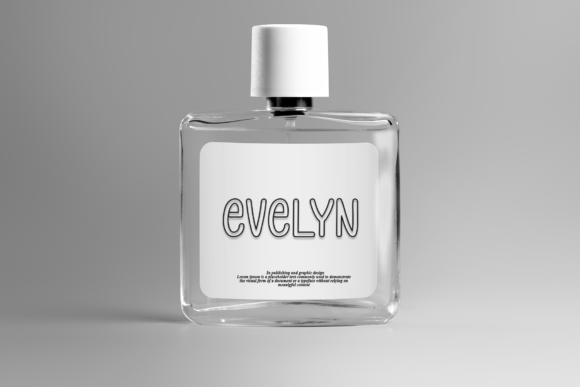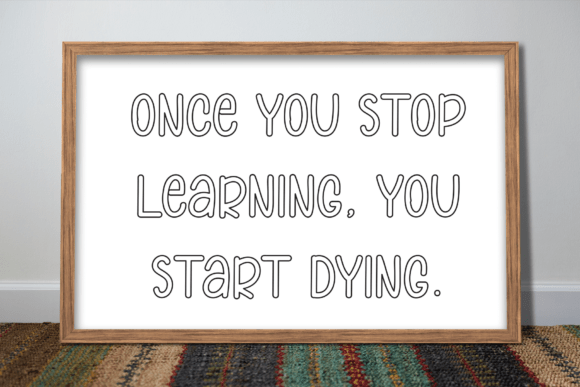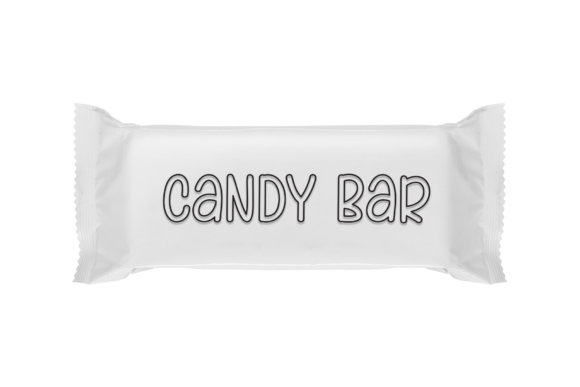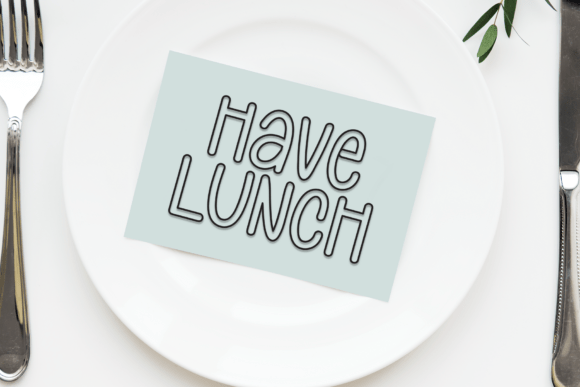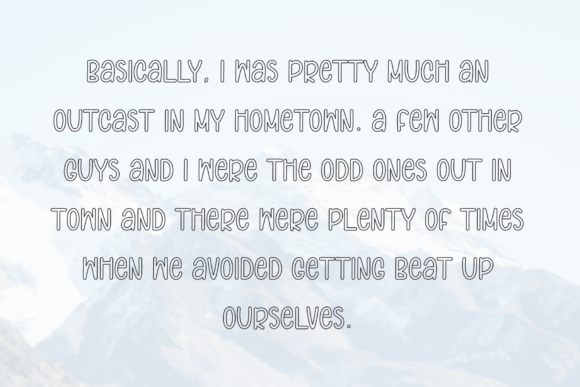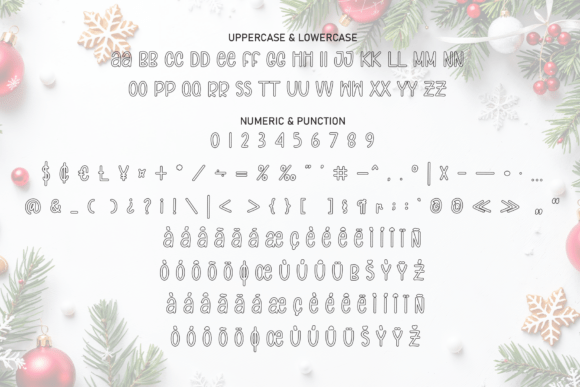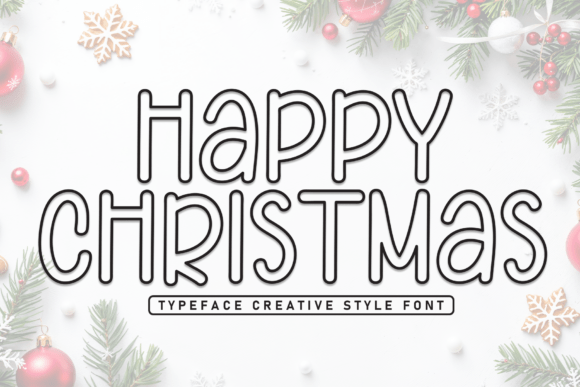
Introducing Happy Christmas Font: The Perfect Blend of Simplicity and Friendliness
Are you looking for a font that can add a warm and inviting touch to your designs? Look no further than Happy Christmas Font! This casual and neat display font is designed to combine simplicity with a friendly, approachable vibe, making it perfect for a wide range of design applications.
Clean Lines, Balanced Letterforms, and Subtle Rounded Edges
One of the standout features of Happy Christmas Font is its clean lines, balanced letterforms, and subtle rounded edges. These design elements work together to create a font that captures the essence of modern handwritten typography with a polished finish. The clean lines and balanced letterforms ensure that the font is easy to read, while the subtle rounded edges add a touch of warmth and friendliness.
Ideal for Branding, Headlines, Packaging, and Digital Content
Happy Christmas Font is an incredibly versatile font that can be used in a wide range of design applications. It’s ideal for branding, headlines, packaging, and digital content, making it a great addition to any designer’s toolkit. Whether you’re creating a logo, brochure, or social media post, this font is sure to add a warm and inviting touch to your design.
Modern Handwritten Typography with a Polished Finish
Happy Christmas Font is a perfect example of modern handwritten typography with a polished finish. The font features a crisp structure and versatile style that delivers clarity and charm in equal measure. The polished finish gives the font a professional look and feel, making it perfect for use in high-end designs.
Adding a Warm and Inviting Touch to Your Designs
One of the key benefits of Happy Christmas Font is its ability to add a warm and inviting touch to any design. The font’s friendly and approachable vibe makes it perfect for use in designs that need to convey a sense of warmth and personality. Whether you’re creating a design for a holiday promotion or a social media post, this font is sure to help you connect with your audience.
Versatility and Flexibility
Happy Christmas Font is an incredibly versatile font that can be used in a wide range of design applications. The font is suitable for use in both digital and print designs, making it a great addition to any designer’s toolkit. Whether you’re creating a logo, brochure, or social media post, this font is sure to deliver.
Key Features of Happy Christmas Font
• Clean lines and balanced letterforms for easy readability
• Subtle rounded edges for a warm and inviting touch
• Ideal for branding, headlines, packaging, and digital content
• Modern handwritten typography with a polished finish
• Crisp structure and versatile style for clarity and charm
Why Choose Happy Christmas Font?
There are many reasons why Happy Christmas Font is a great choice for designers and crafters. Here are just a few:
• Unique and eye-catching design that’s sure to stand out
• Versatile and flexible, making it suitable for a wide range of design applications
• Easy to read and understand, making it perfect for use in body copy
• Professional look and feel that’s perfect for high-end designs
In conclusion, Happy Christmas Font is a fantastic addition to any designer’s toolkit. Its unique blend of simplicity and friendliness makes it perfect for a wide range of design applications, from branding and headlines to packaging and digital content. With its clean lines, balanced letterforms, and subtle rounded edges, this font is sure to add a warm and inviting touch to any design.